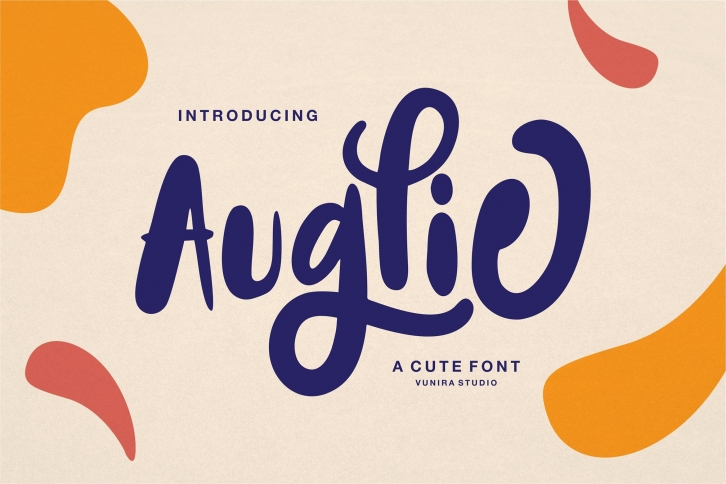
Auglie is a great font that was designed by Vunira. Imagine the amount of combinations you can create using this font! The archive is 7.36 MB and it was released on January 3, 2021. Auglie looks beautiful on wedding invitations, greeting cards, logos, posters, labels, t-shirt designs, logos, business cards and is perfect for use in ink or watercolor works, fashion, magazines, packaging and food menus, children's books and more!